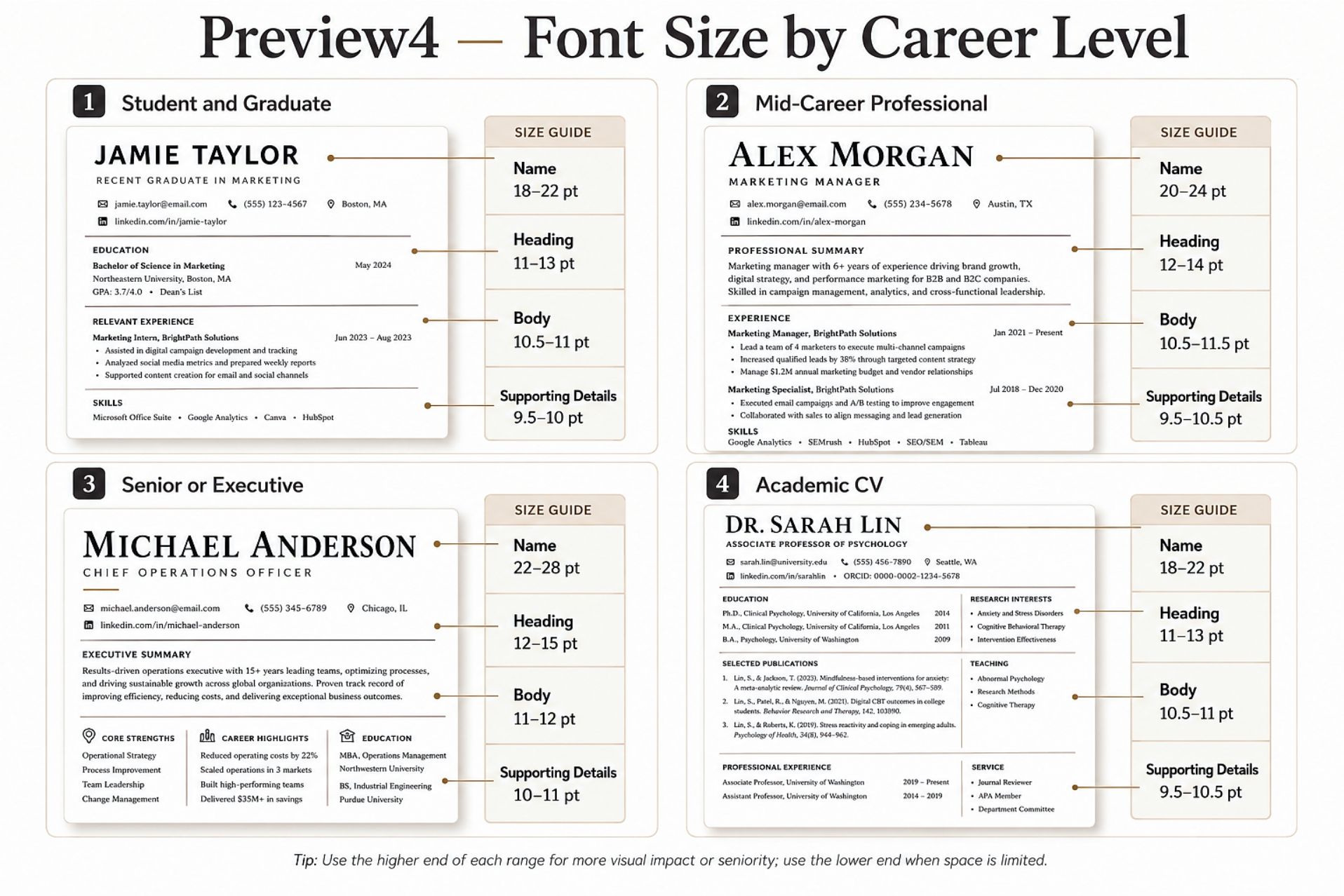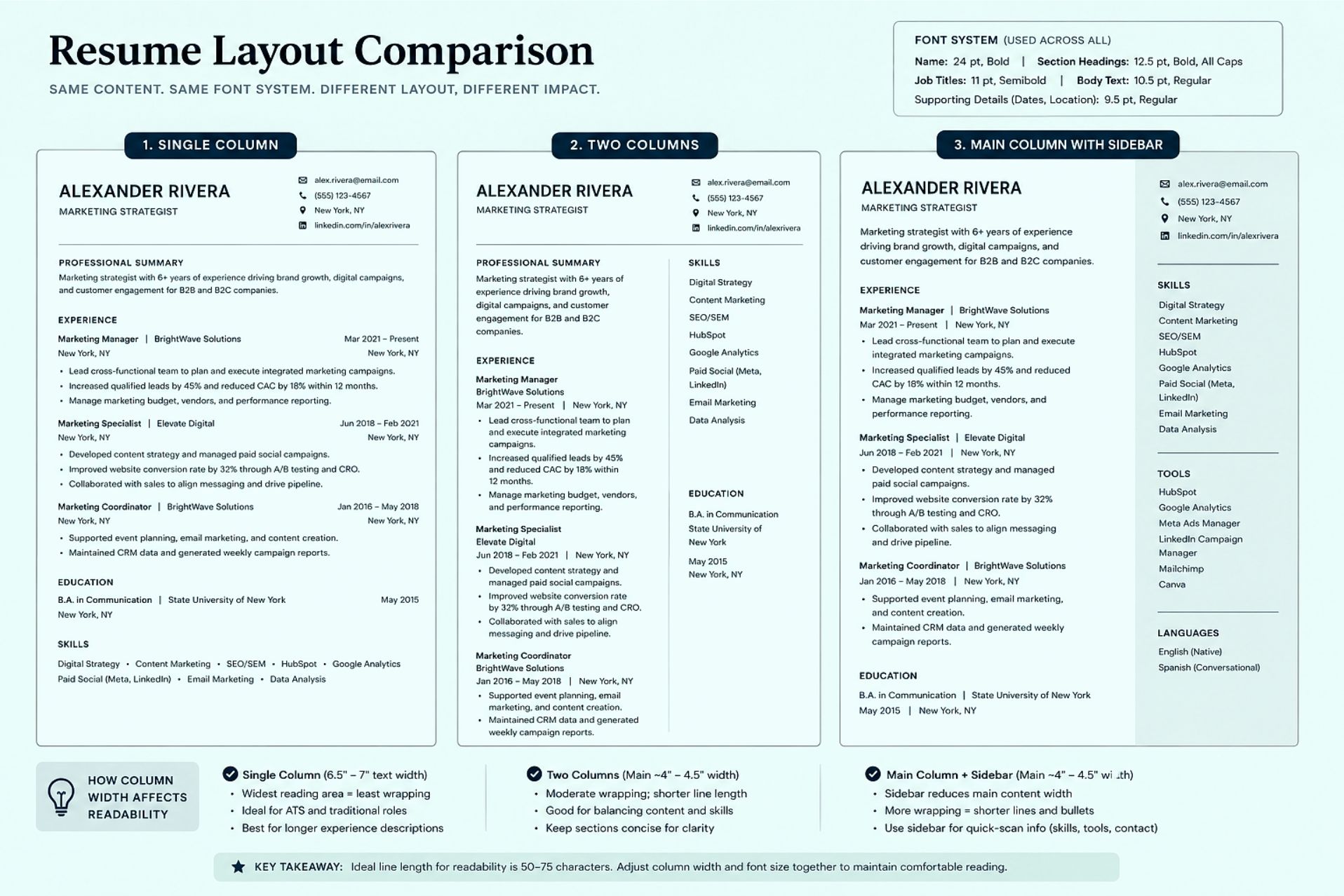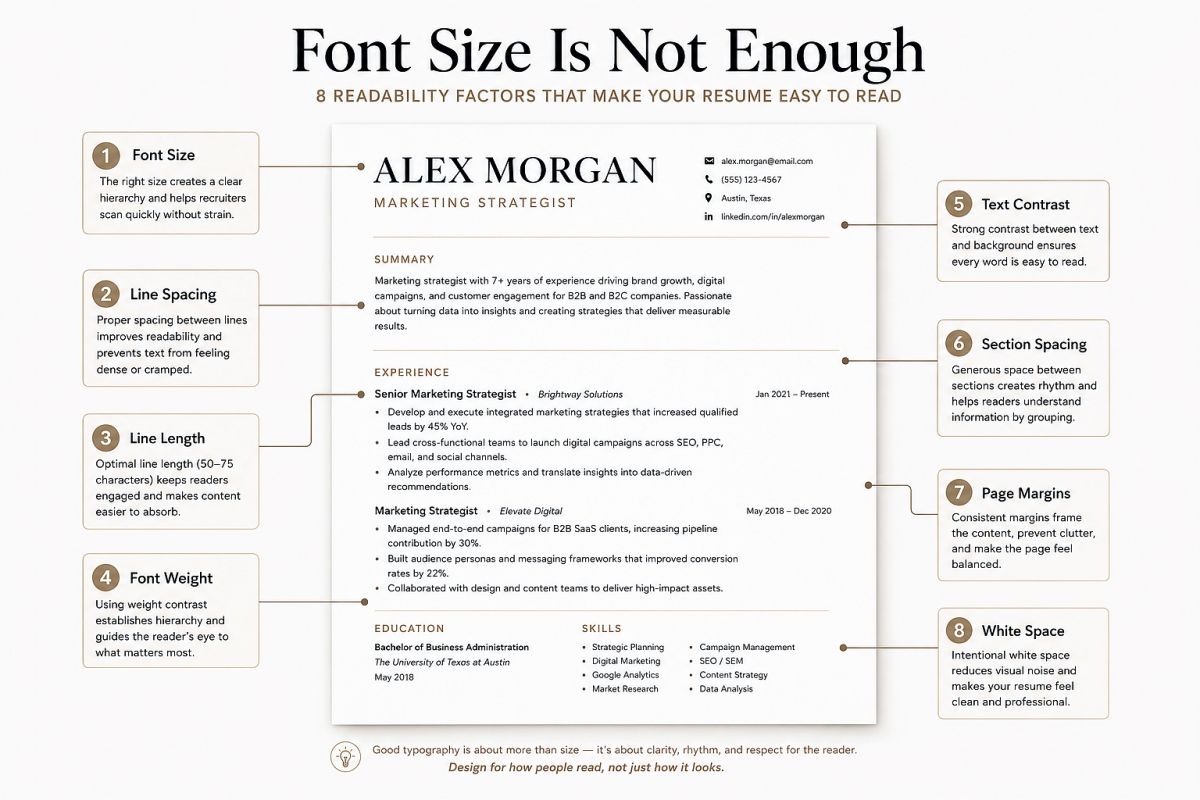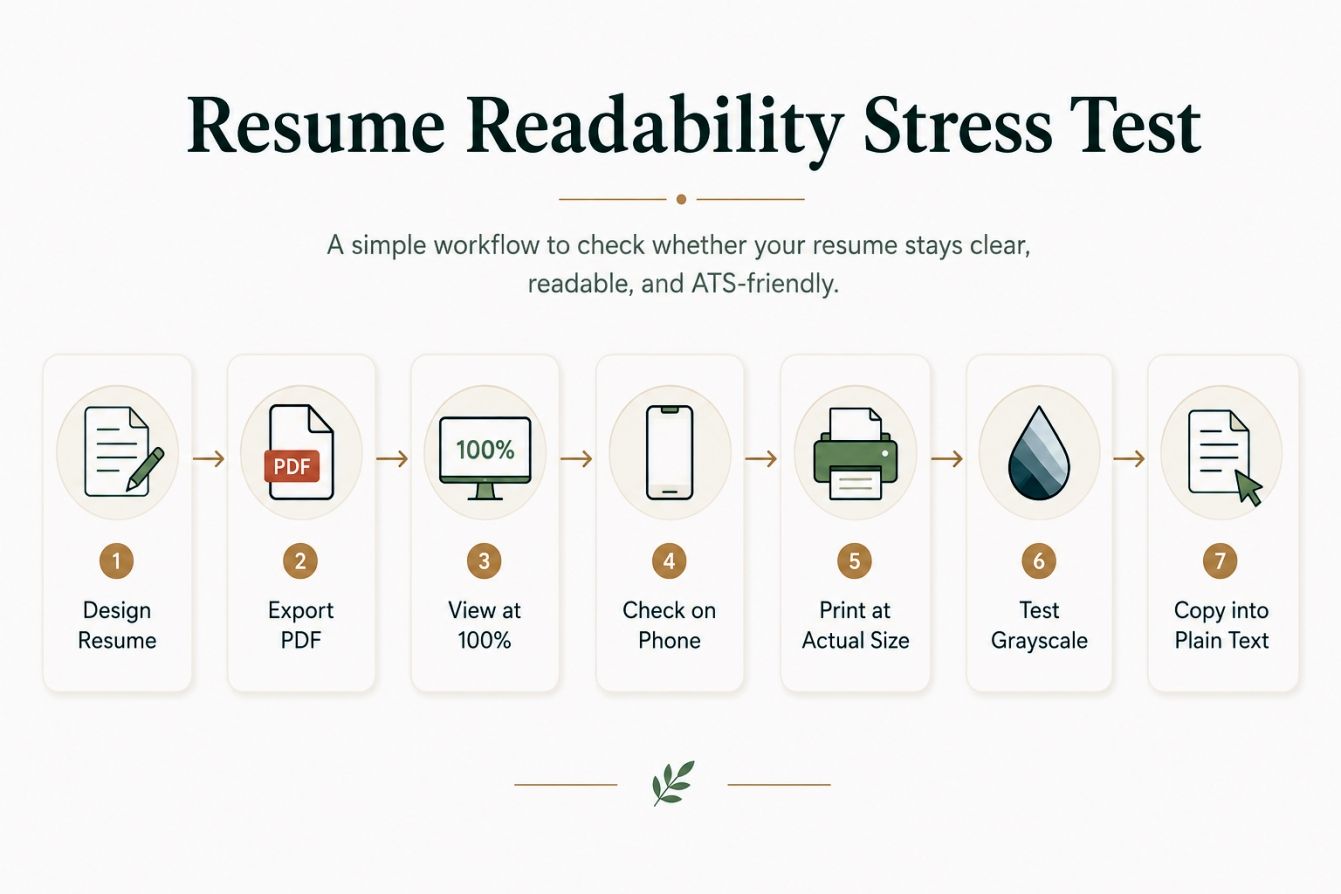
Resume Font Size Guide: How to Make Your CV Easy to Read
Font size looks like a small resume detail.
It is not.
The wrong size can make strong experience feel difficult to scan. Text that is too small creates friction. Text that is too large makes your resume look empty, inexperienced, or poorly organized.
The goal is not simply to fit everything onto one page.
Your real goal is to help a recruiter understand your value without working for it.
In this resume font size guide, I will show you how to create a clear typography system for your name, headings, job titles, dates, bullet points, and supporting details. You will also learn how font choice, spacing, page density, and screen size affect the final result.
What Is the Best Font Size for a Resume?
For most resumes, 10.5 to 12 points works well for the main body text.
That is the practical answer.
However, it is not the complete answer.
A strong resume normally uses several coordinated sizes rather than one size everywhere. Your name should be larger than your section headings. Your section headings should be more prominent than your bullet points. Dates and locations can be slightly quieter, but they should still be readable.
Here is a reliable starting system:
Resume ElementRecommended Font Size
Candidate name20–28 pt
Professional title or headline11–14 pt
Section headings12–16 pt
Job titles and company names10.5–12 pt
Main body text10.5–12 pt
Dates and locations9.5–11 pt
Contact information9.5–11 pt
Supporting labels9.5–10.5 pt
These numbers are starting points, not rigid rules.
Both the Harvard resume guide and University of Pennsylvania Career Services recommend using a standard and consistent font size. A range of approximately 10 to 12 points is commonly used for resume content.
The correct size within that range depends on the font, page layout, and amount of information you need to present.
Think in Terms of a Font Size System
One of the most common resume typography mistakes is choosing every size independently.
You might use 24 points for your name because it looks good. Then 15 points for section headings. Then 11 points for body text. After that, you reduce dates to 8 points because the page feels crowded.
Each decision may seem reasonable on its own.
Together, they can create an inconsistent document.
I recommend thinking of resume typography as a small design system with four levels.
Level 1: Your Name
Your name is the primary identifier.
It should be the largest piece of text on the page, but it does not need to dominate the entire header.
A range of 20 to 28 points works for most layouts.
Use the lower end when:
• Your name is long.
• Your resume has a narrow column.
• Your header includes several contact details.
• You are using a font with wide letterforms.
Use the higher end when:
• Your name is short.
• Your layout has generous white space.
• You want a more editorial or portfolio-style presentation.
• Your chosen font looks visually small.
Avoid turning your name into a logo unless you work in a creative field and the design supports your professional positioning.
Clarity still comes first.
Level 2: Section Headings
Section headings help the reader navigate.
Examples include:
• Professional Experience
• Education
• Skills
• Certifications
• Selected Projects
• Awards
A size between 12 and 16 points usually creates enough separation from the body text.
You do not always need a dramatic increase. A section heading can also stand out through bold weight, capitalization, spacing, or a subtle divider line.
For example, 12-point bold text can feel more prominent than 14-point regular text.
Level 3: Core Resume Content
Your core content includes job titles, company names, descriptions, achievements, and project details.
This is where most of the reading happens.
Start at 11 points.
Then test the result.
Move to 10.5 points when the font remains clear and you need slightly more space. Move to 11.5 or 12 points when your resume is short, your audience may prefer larger text, or the typeface looks small at its stated size.
Level 4: Supporting Information
Dates, locations, contact details, and secondary labels can be slightly smaller.
A range of 9.5 to 11 points is usually enough.
Do not make these details tiny simply because they are secondary. Recruiters still need to find your employment dates, location, email address, and portfolio link.
Secondary information should be quieter.
It should not be difficult to read.
The Same Font Size Can Look Completely Different
Point size does not tell you how large a font will appear.